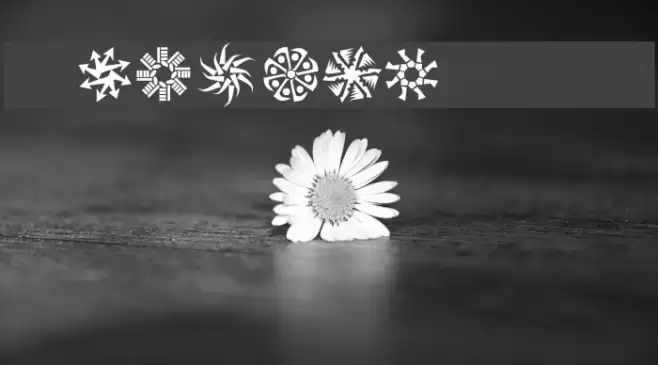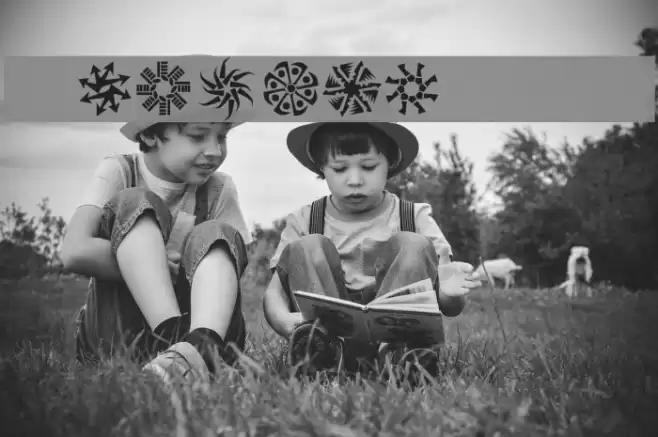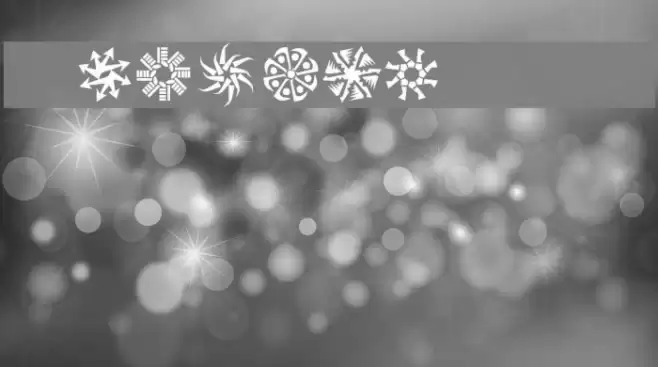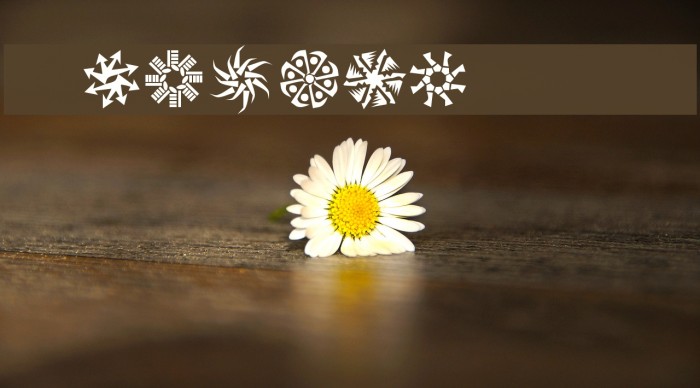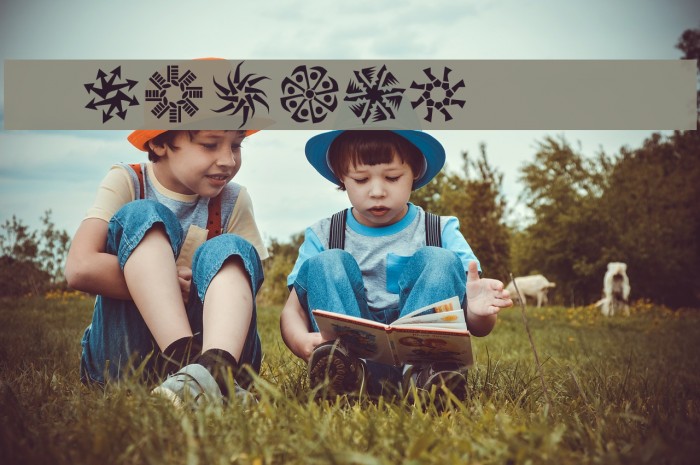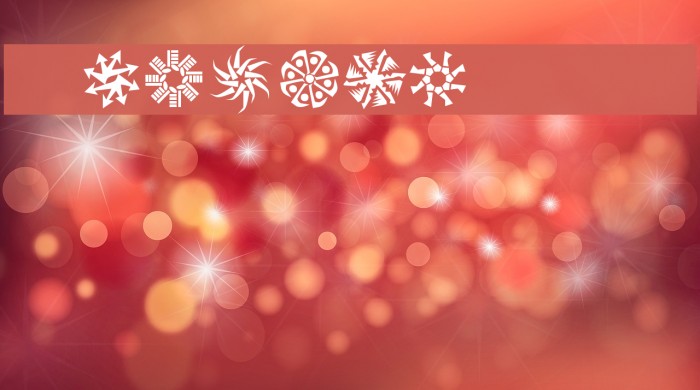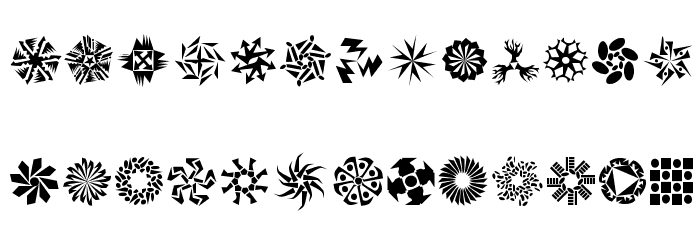
HexstarDEMO Font
HexstarDEMO Description
A decorative display font consisting of intricate geometric and abstract star-like symbols for each character, with bold, high-contrast black shapes and no traditional letterforms. The font is highly stylized and ornamental, suitable for visual accents rather than text readability.
Ornamental geometric symbol font with star and abstract shapes from Images & Symbols fonts.
- Proposed Projects: Logos, branding, decorative borders, posters, digital art, iconography.
- Overall Style: Decorative, Abstract, Modern
- Use Case: Logos, Decorative elements, Posters, Icons